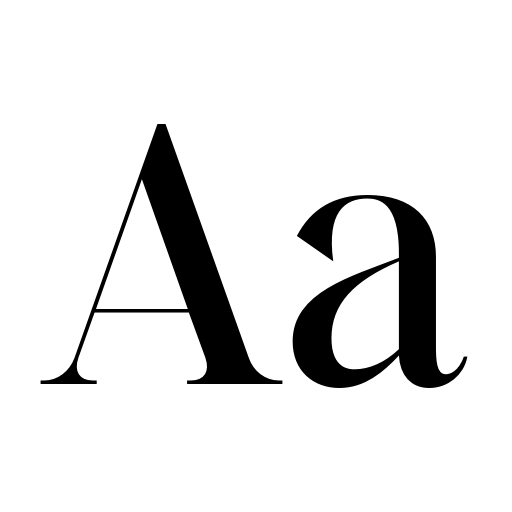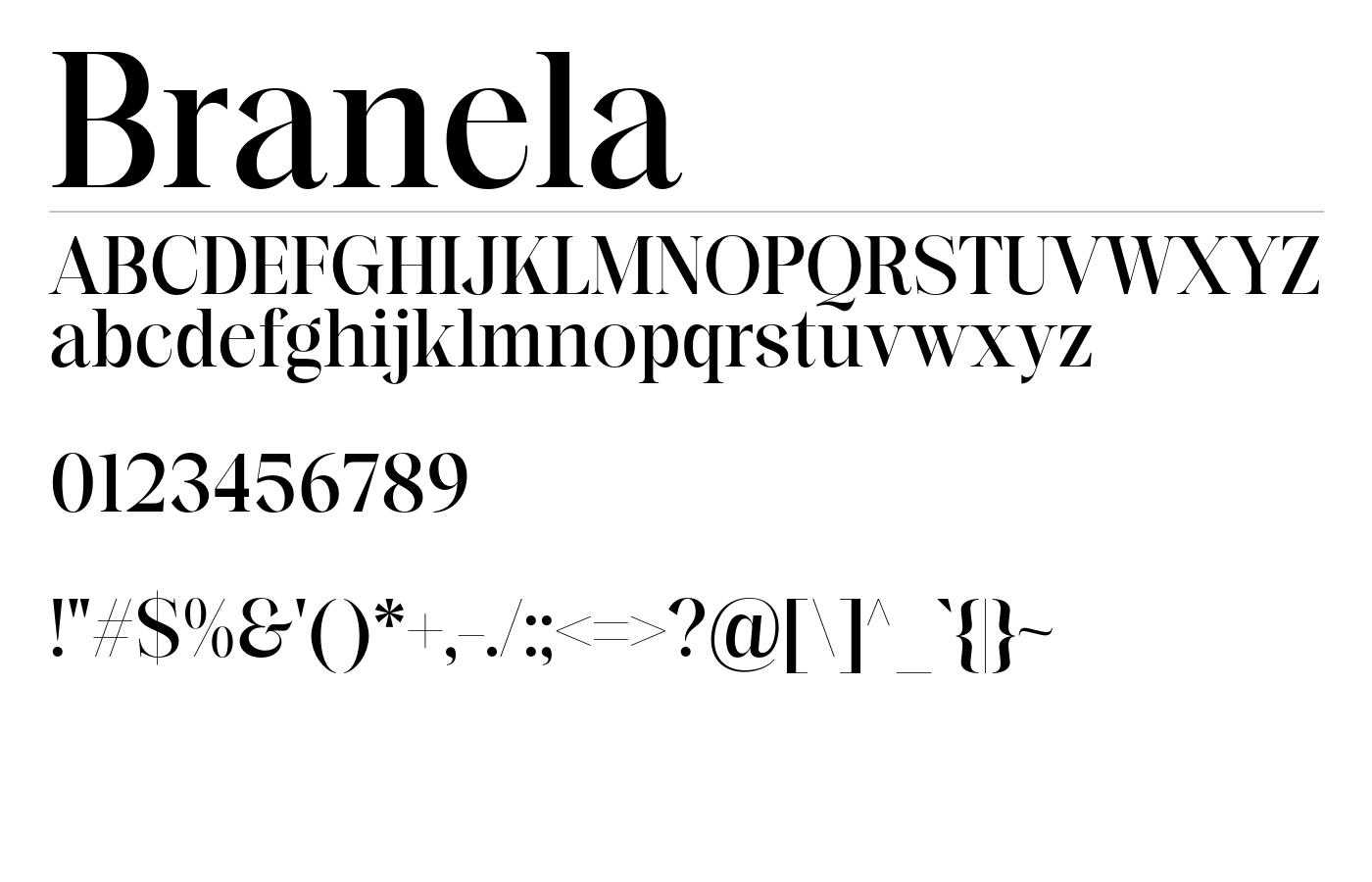
Branela is an elegant serif font with high contrast between thick and thin strokes, featuring classic, refined letterforms with bracketed serifs and a medium-high x-height that balances readability with style. Its sophisticated and timeless design makes it ideal for luxury branding, editorial headlines, and fashion-related projects where a touch of class and formality is desired. This font works best in large sizes, lending a polished and graceful presence to any design.
Branela Font
About Branela Font